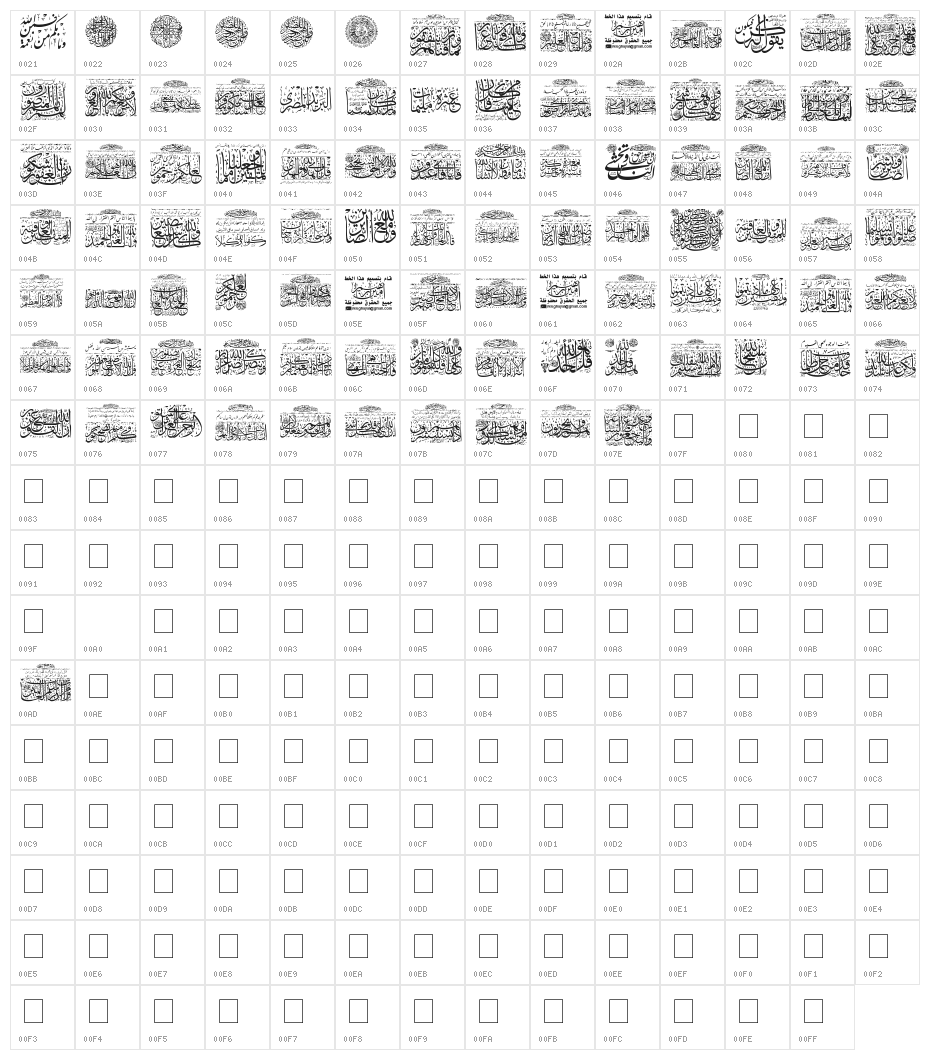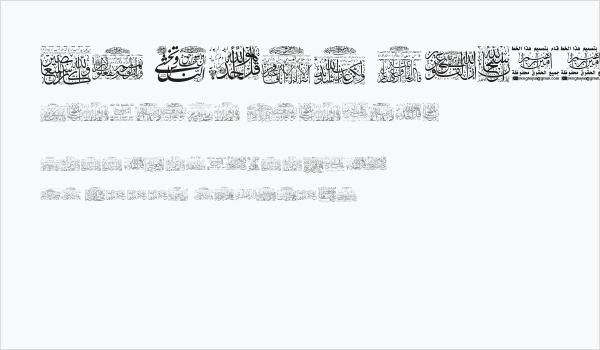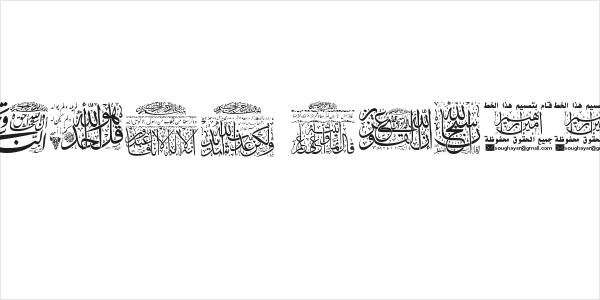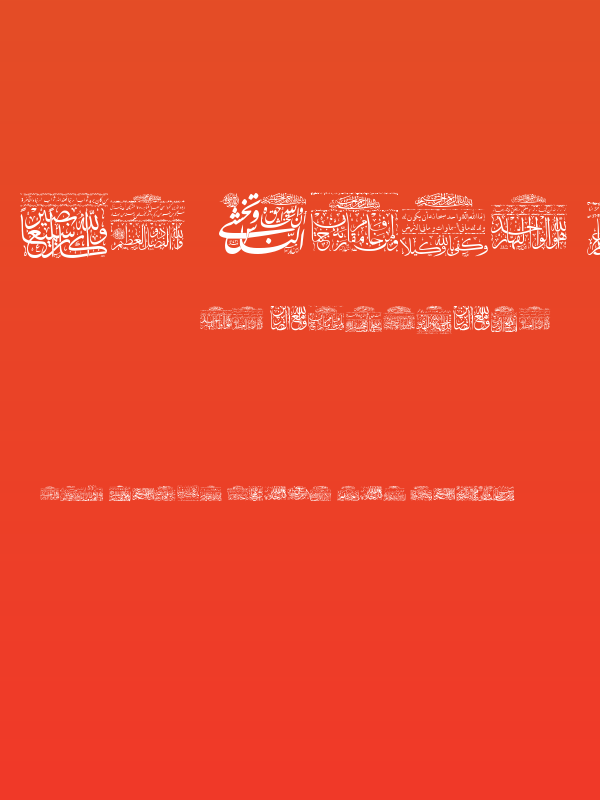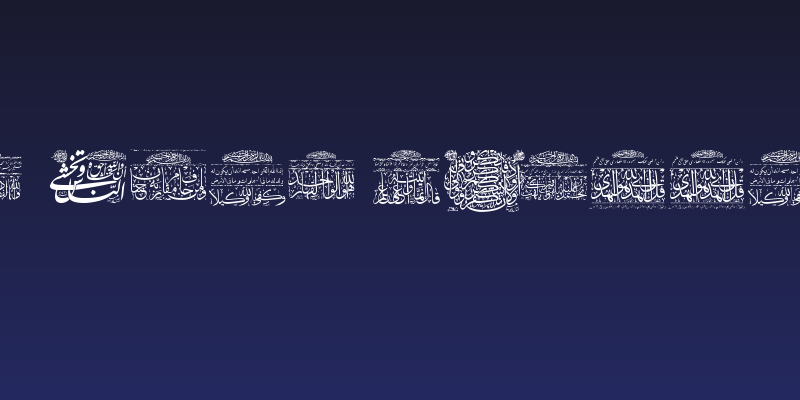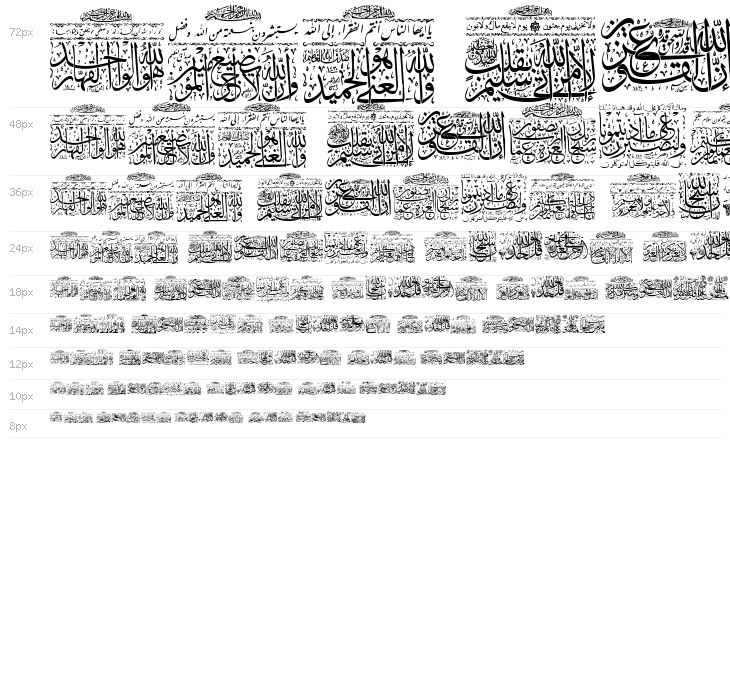
My Font Quraan 3 Font
My Font Quraan 3 Description
This is not a standard font but rather a collection of intricate calligraphic designs, likely inspired by traditional Arabic script. The designs are highly decorative, featuring complex patterns and flourishes that are characteristic of Islamic art. The characters are not uniform in size or shape, emphasizing artistic expression over readability. This style is often used in religious or ceremonial contexts, where the visual impact is as important as the text itself.
| Overall Style | Traditional, Decorative |
| Use Case | Decorative art, Religious texts |
| Proposed Projects | Ideal for religious texts, ceremonial documents, or decorative art pieces where traditional Arabic calligraphy is desired. |